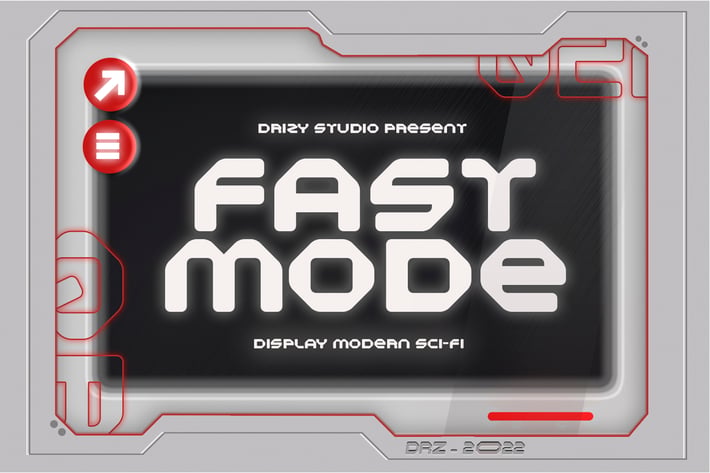
Fastmode - Modern Sci-fi Font
Fastmode is a Modern Sci-fi Font from Drizy studio. Offering all the basic styles you will need especially modern theme project.
Fastmode Features:
All Caps
Multilinguals